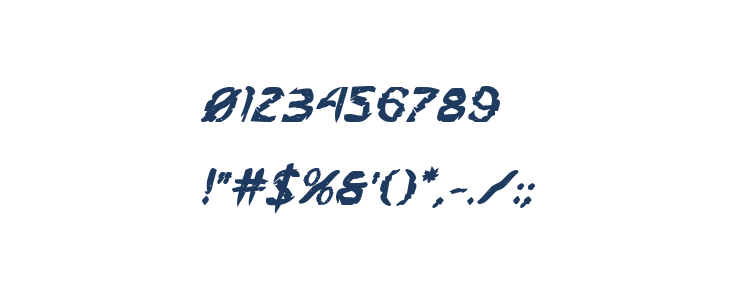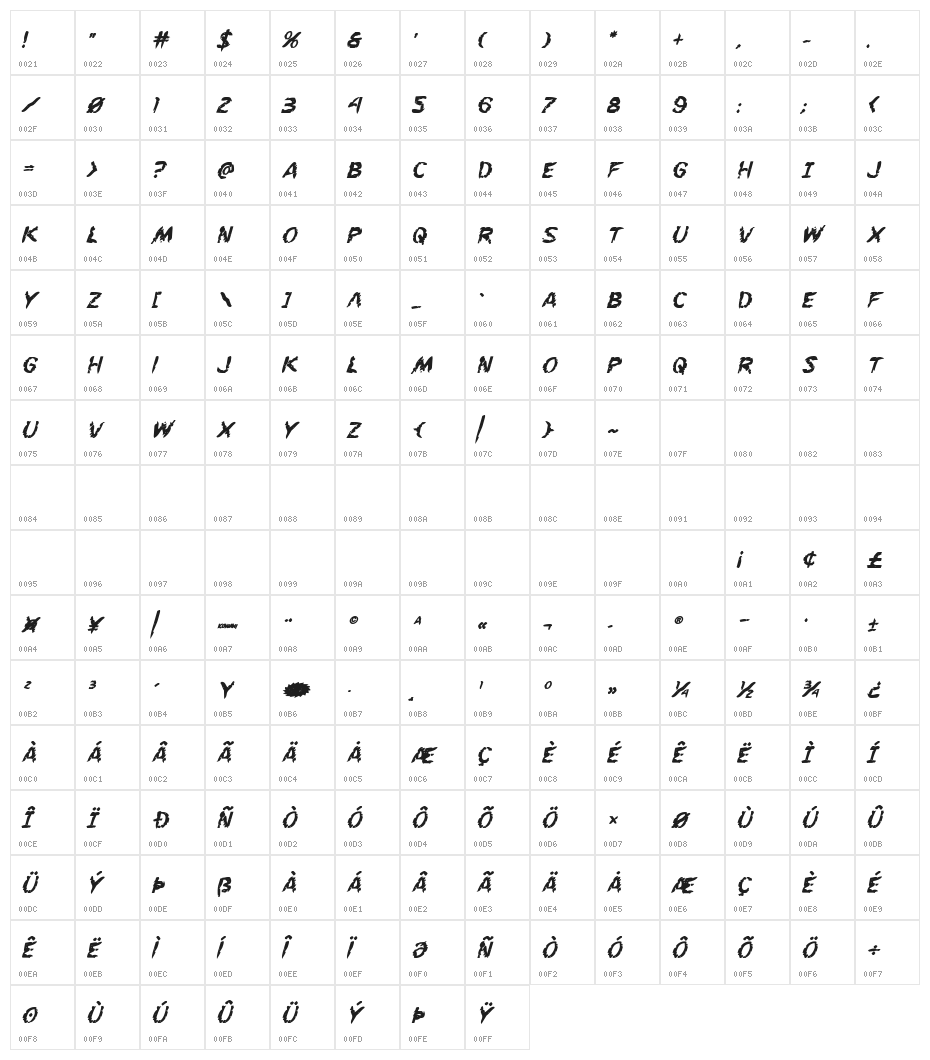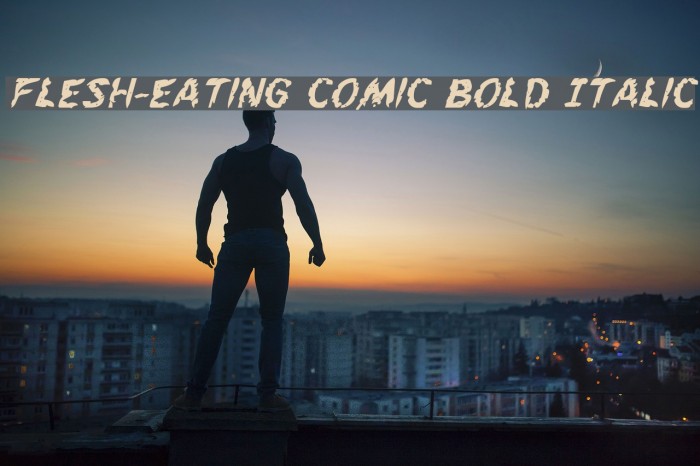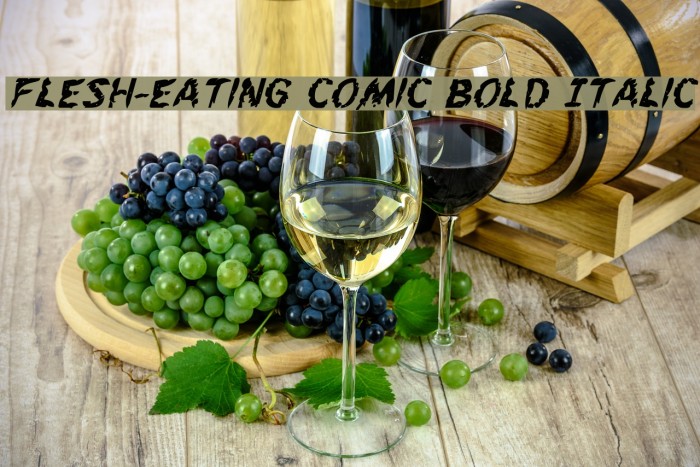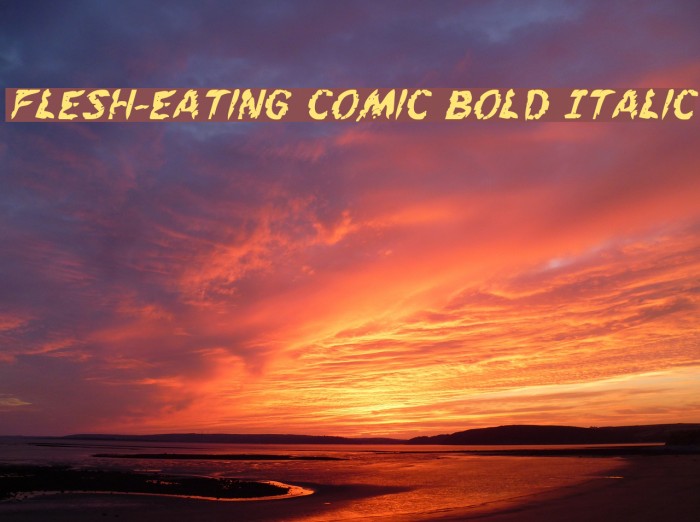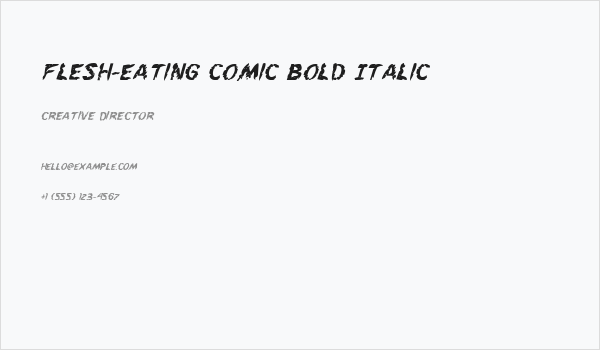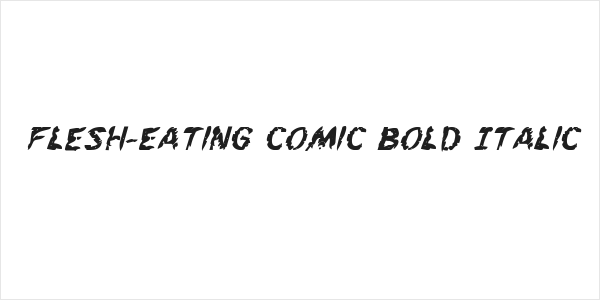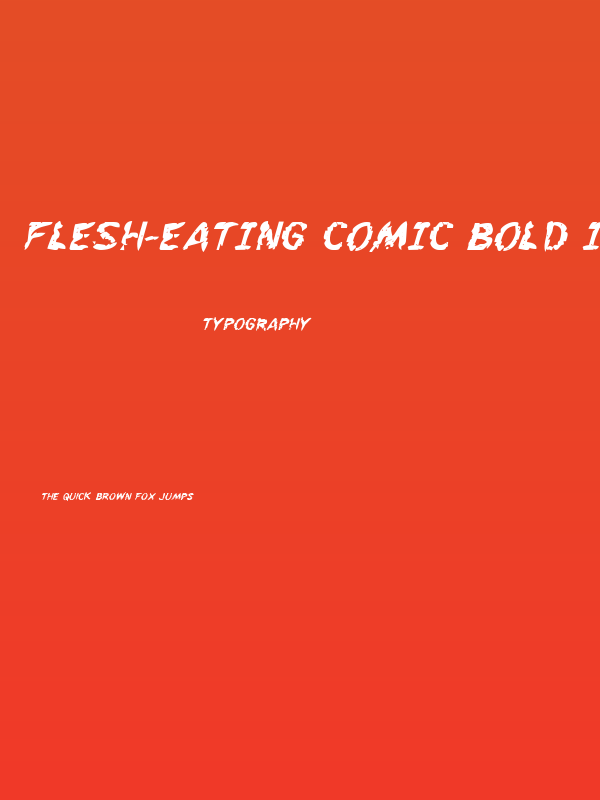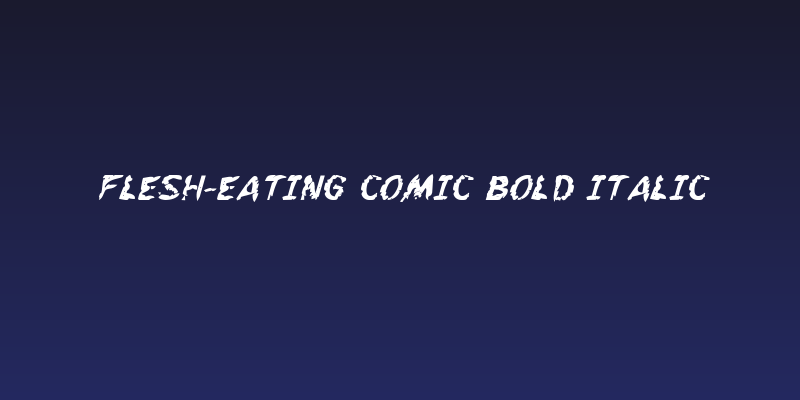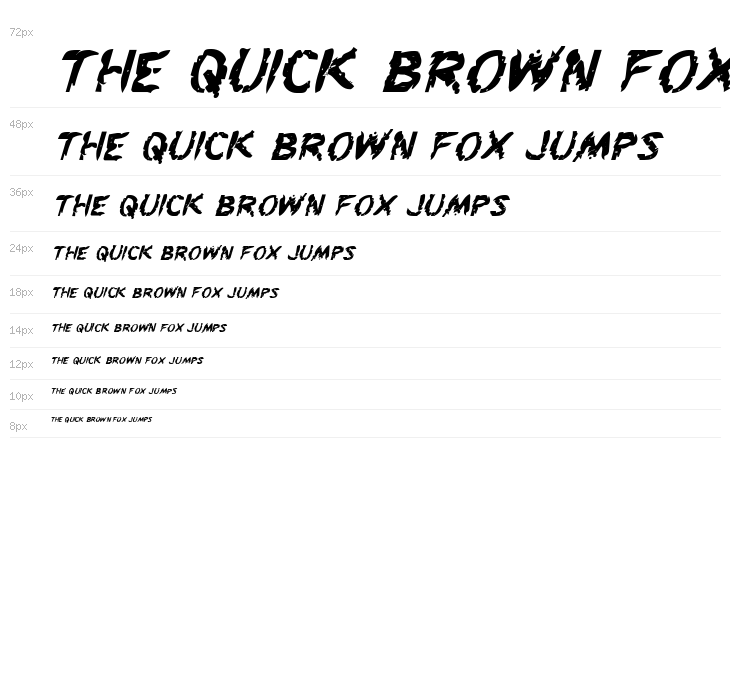
Flesh-Eating Comic Bold Italic Font
Flesh-Eating Comic Bold Italic Description
This font features a bold and italic style with a unique, distressed appearance that gives it a comic and slightly chaotic feel. The characters appear as if they have been eroded or eaten away, creating a dynamic and edgy look. The uppercase and lowercase letters maintain a consistent style, with jagged edges and irregular shapes that add to the font's distinctive personality. The numbers and special characters follow the same design, ensuring a cohesive appearance across all text elements. This font is ideal for projects that require a bold statement or a touch of horror and humor.
| Proposed Projects | Ideal for horror-themed posters, comic book titles, Halloween invitations, or any project needing a bold, edgy font. |